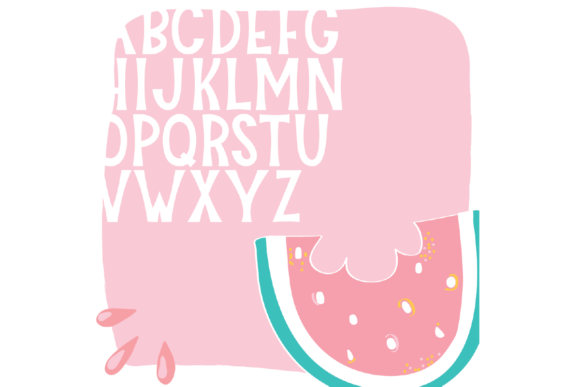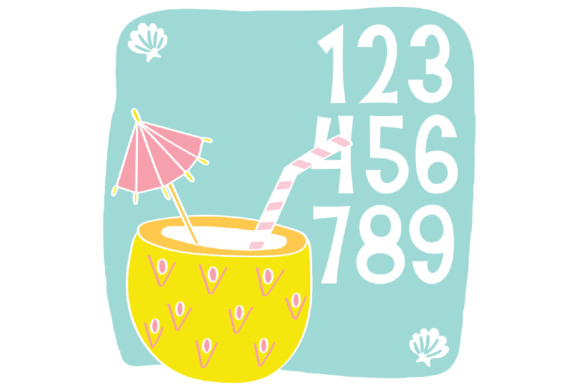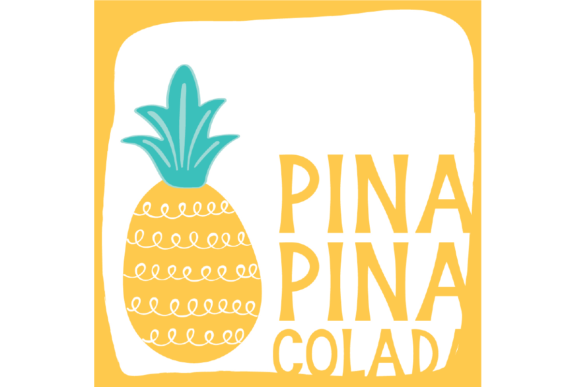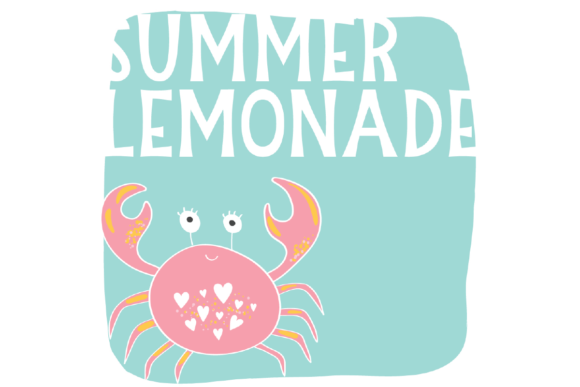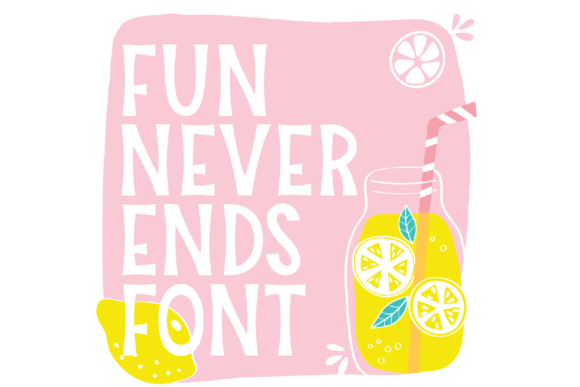
Introducing Fun Never Ends Font: The Ultimate Addition to Your Design Collection
Are you tired of using the same old fonts in your designs? Do you want to add a touch of youth and joy to your party invitations, gatherings, or any other design project? Look no further than the Fun Never Ends Font! This bold, thick lettered, and modern display font is the perfect addition to take your designs to the next level.
What is Fun Never Ends Font?
Fun Never Ends Font is a unique and eye-catching font that is designed to make a statement. Its bold and thick letters make it perfect for headlines, titles, and any other design element that requires attention-grabbing text. The font’s modern and edgy style gives it a youthful and vibrant feel, making it ideal for designs that require a touch of fun and playfulness.
Key Features of Fun Never Ends Font
- Bold and Thick Letters: The font’s bold and thick letters make it perfect for designs that require a statement piece.
- Modern and Edgy Style: The font’s modern and edgy style gives it a youthful and vibrant feel.
- Highly Versatile: Fun Never Ends Font can be used in a variety of design projects, from party invitations to business cards.
- Easily Readable: Despite its bold and thick letters, the font is easily readable, making it perfect for designs that require clear and concise text.
How to Use Fun Never Ends Font
Fun Never Ends Font is incredibly versatile and can be used in a variety of design projects. Here are a few ideas to get you started:
- Party Invitations: Add a touch of fun and playfulness to your party invitations with Fun Never Ends Font.
- Gatherings and Events: Use the font to create eye-catching posters and flyers for gatherings and events.
- Social Media Graphics: Add a pop of fun and personality to your social media graphics with Fun Never Ends Font.
- Business Cards: Use the font to create bold and eye-catching business cards that make a statement.
Why Designers and Crafters Love Fun Never Ends Font
Designers and crafters love Fun Never Ends Font for its unique and eye-catching style. The font’s bold and thick letters make it perfect for designs that require attention-grabbing text, while its modern and edgy style gives it a youthful and vibrant feel. Here are a few reasons why designers and crafters love Fun Never Ends Font:
- High-Quality Design: The font is designed with high-quality and precision, ensuring that it looks great in any design project.
- Unique Style: The font’s unique style sets it apart from other fonts, making it perfect for designers and crafters who want to add a touch of personality to their designs.
Tips and Tricks for Using Fun Never Ends Font
Here are a few tips and tricks for using Fun Never Ends Font:
- Use it Sparingly: While Fun Never Ends Font is eye-catching and fun, it can be overwhelming if used too much. Use it sparingly to add a touch of personality to your designs.
- Pair it with Other Fonts: Pair Fun Never Ends Font with other fonts to create a unique and visually appealing design.
- Experiment with Colors: Experiment with different colors to find the perfect combination that works with Fun Never Ends Font.
Fun Never Ends Font is the perfect addition to any design collection. Its bold and thick letters, modern and edgy style, and highly versatile nature make it perfect for a variety of design projects. Whether you’re a designer or crafter, Fun Never Ends Font is sure to bring a touch of youth and joy to your designs. So why wait? Download Fun Never Ends Font today and start creating fun and eye-catching designs!